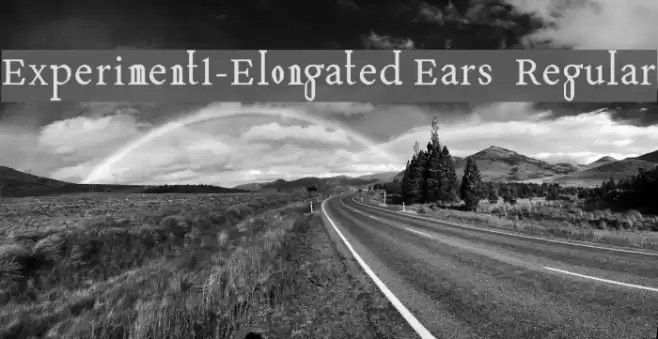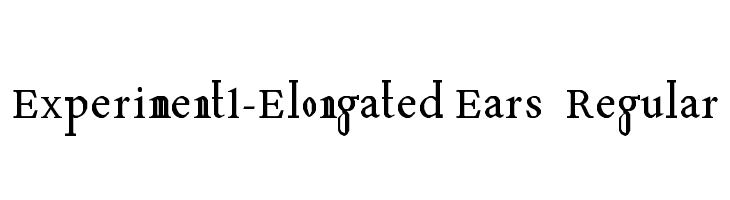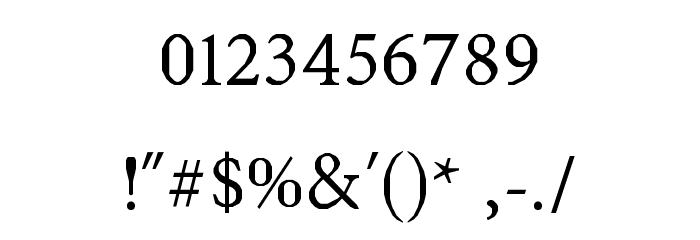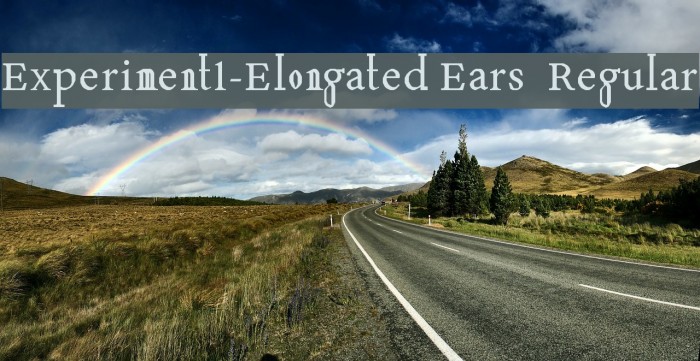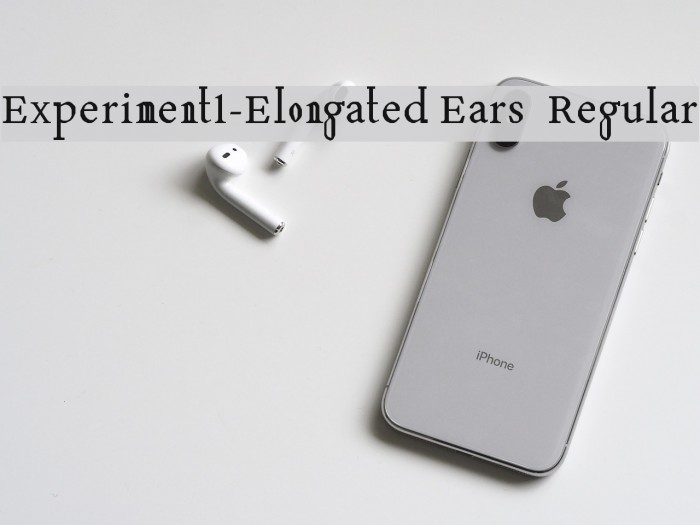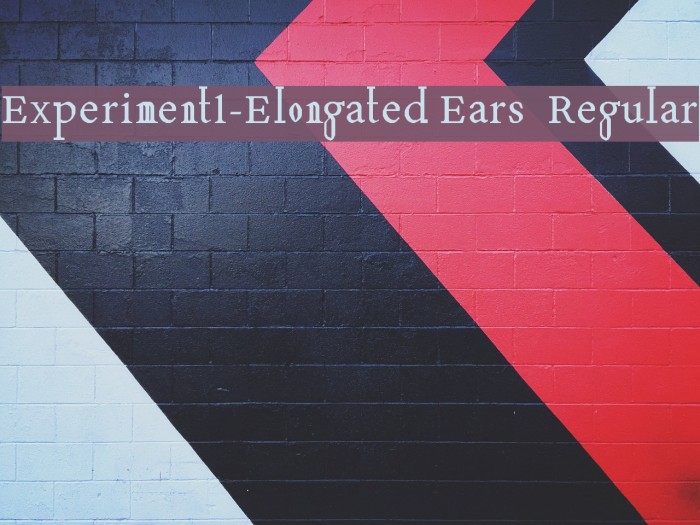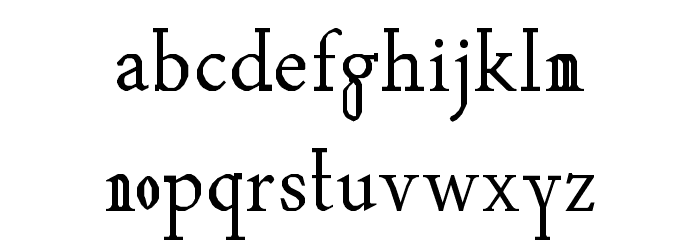
Experiment1-Elongated Ears Regular Font
Experiment1-Elongated Ears Regular Description
This font features a unique blend of classic serif elements with a modern twist. The characters exhibit elongated and slightly exaggerated serifs, giving them a distinctive and elegant appearance. The uppercase letters are bold and commanding, while the lowercase letters maintain a consistent style with a touch of whimsy in their curves. The numerals are clear and well-defined, ensuring readability. Special characters are crafted with attention to detail, complementing the overall aesthetic. This font balances traditional serif characteristics with a contemporary flair, making it versatile for various design needs.
A modern serif font with elongated serifs and a distinctive, elegant style from Uncategorized fonts.
- Proposed Projects: Ideal for branding, editorial design, book covers, and elegant invitations.